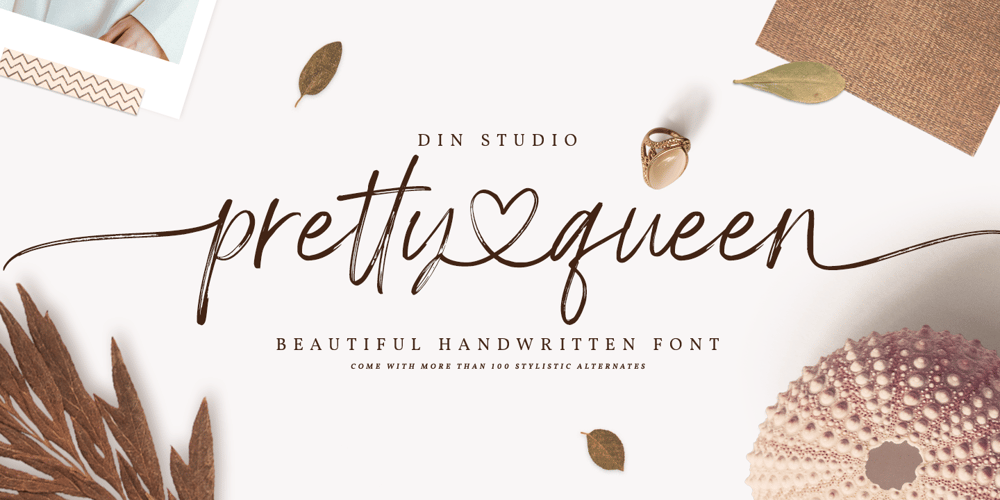
Pretty Queen Font Family was designed by Donis Miftahudin and published by Din Studio. Pretty Queen contains 1 styles and family package options. Pretty Queen is a beautiful brush signature font. Made for any professional project branding. Every letter has a unique and beautiful touch. Made from our talented designer. Love swash will make your design more beautiful.Features: 52 Stylistic set Ligatures Uppercase Alternates Multilingual Support PUA encoded